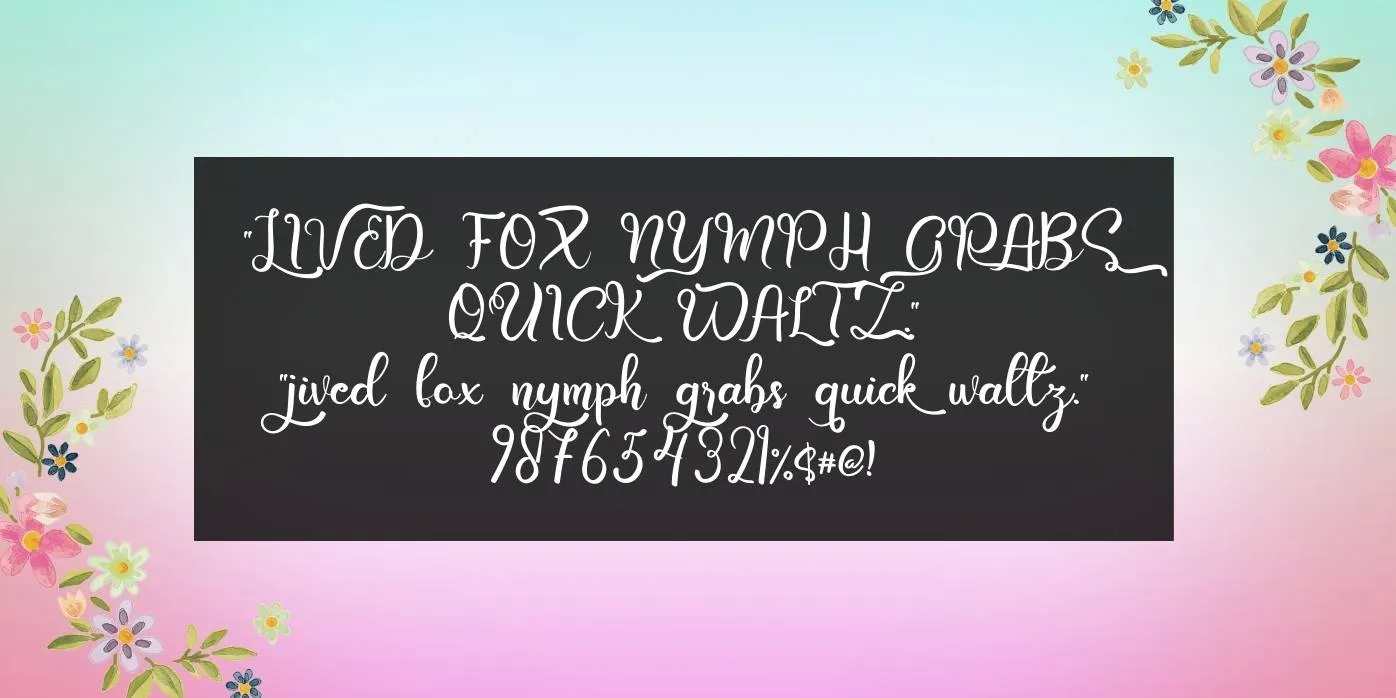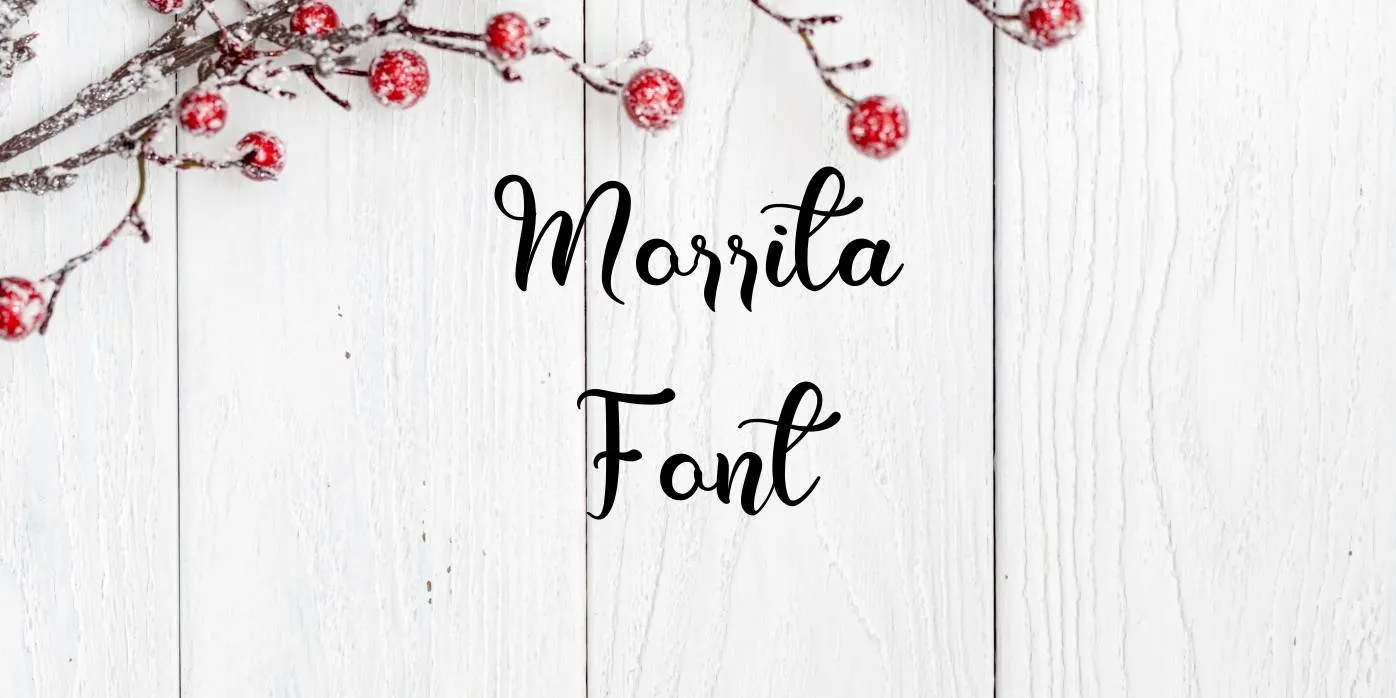
Morrita Font
Here we present a very famous typeface named Morrita Font. This typeface belongs to the calligraphy typeface. This font family was created by kateengciu. This staggering font family comprises six different styles.
The Morrita Typeface was inspired by traditional hand-lettering techniques. The result is a typeface with a very natural and organic feel. This awesome typeface is perfect for any project that requires a handwritten look. Its copy and paste function is suitable for many projects.
The Morita font family includes six different styles: Regular, Bold, Italic, Bold Italic, Light, and Light Italic. Each style contains over 250 glyphs, including support for Extended Latin, Cyrillic, and Greek character sets.  Its text generator tool is very useful for different projects.